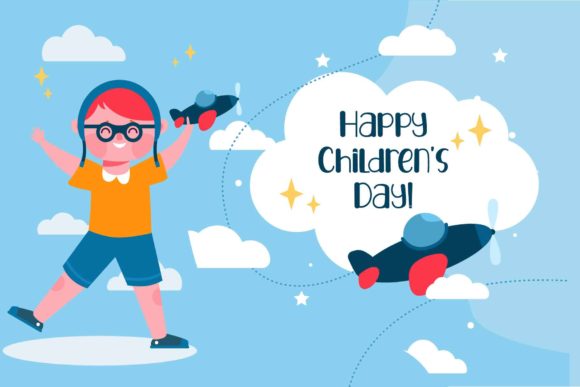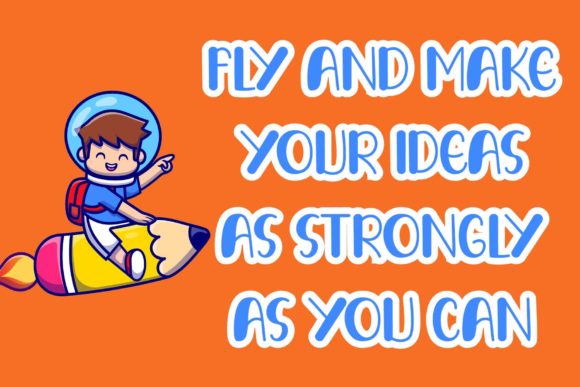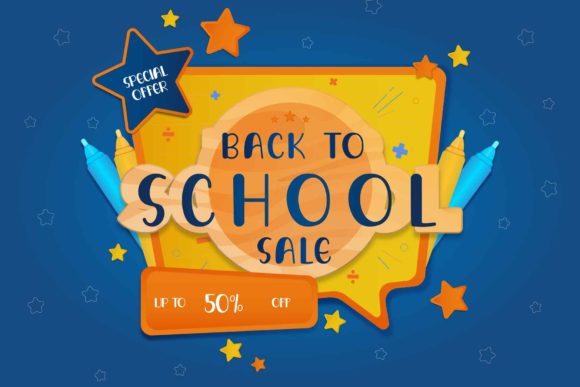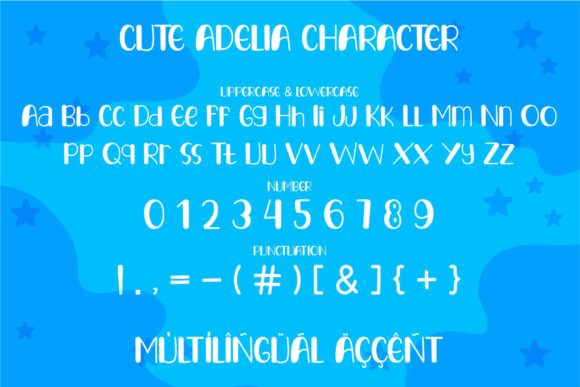
Introduction to Cute Adelia Font
Cute Adelia is a sweet and playful display font.
This original look will appeal to a wide range of crafty ideas, from letterheads and titles, to stationery .
Key Features of Cute Adelia Font